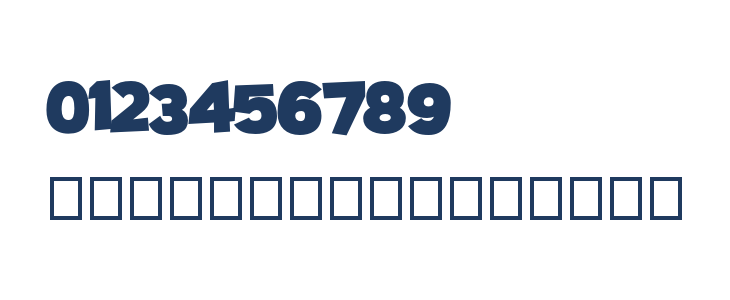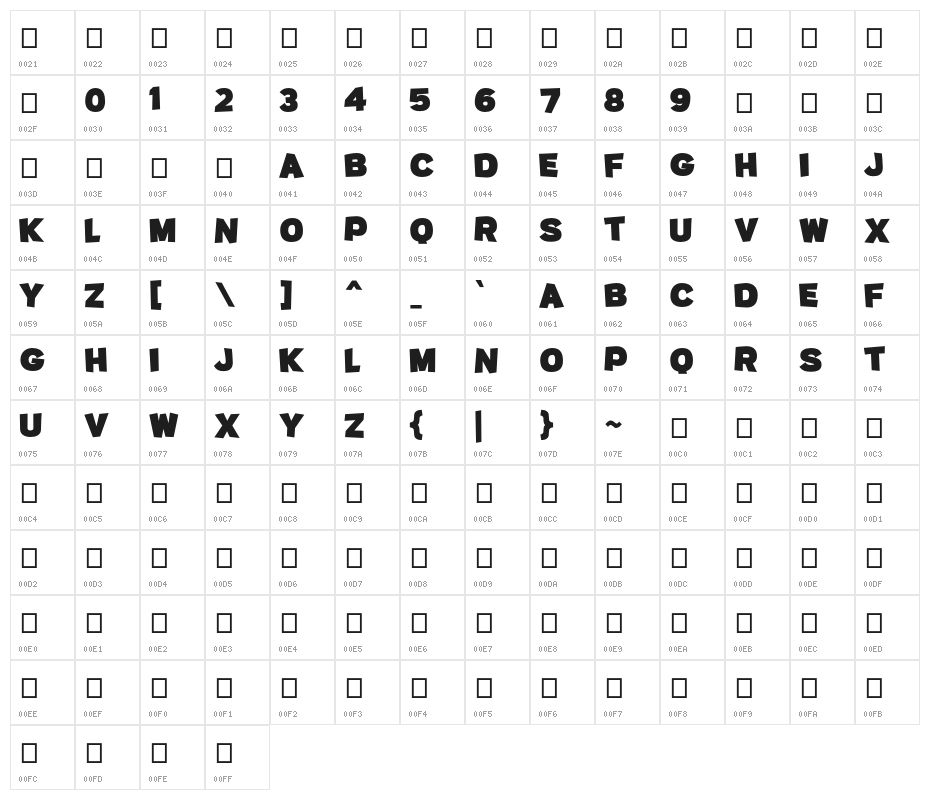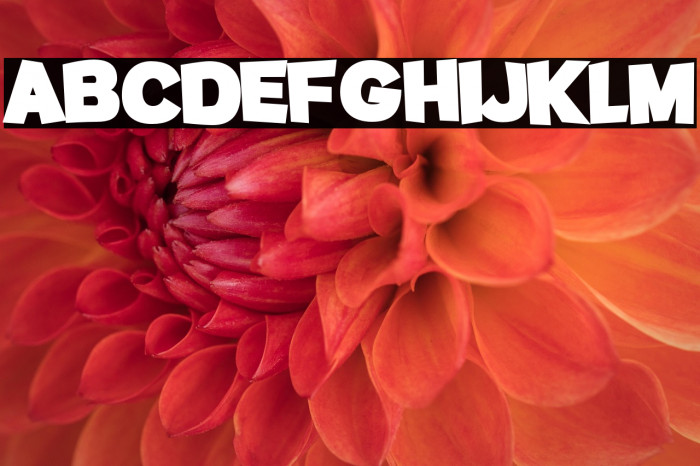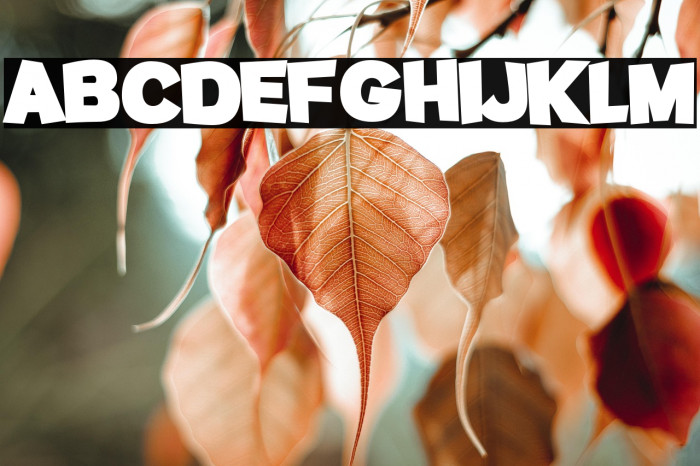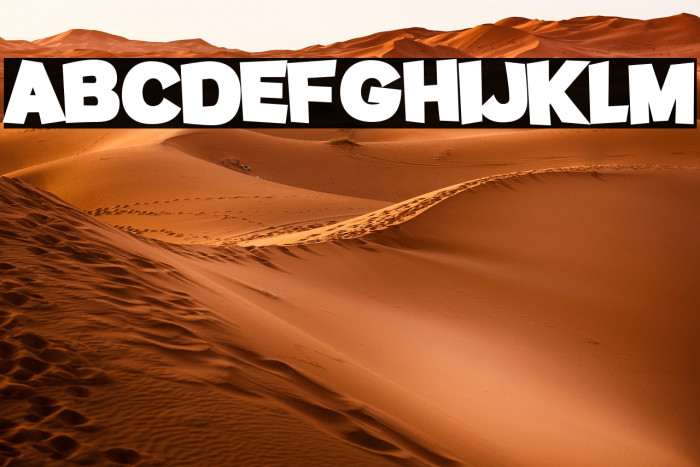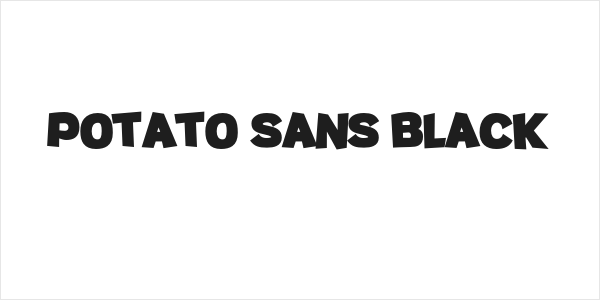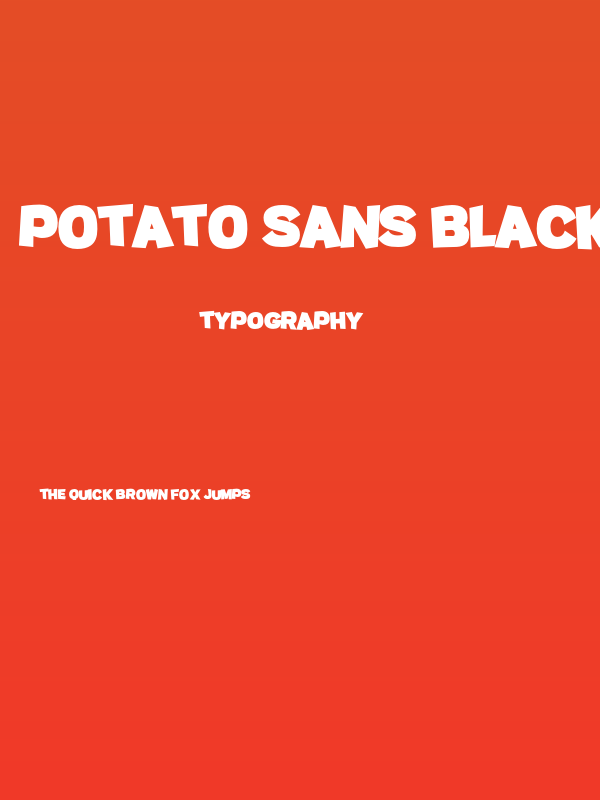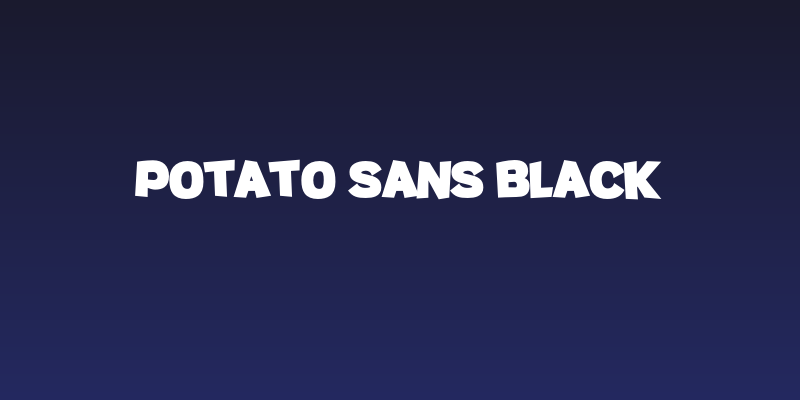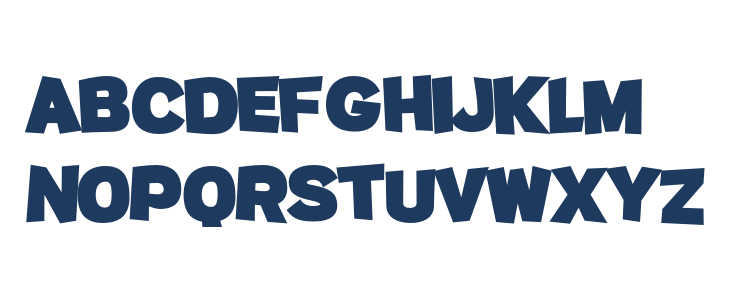
Potato sans Black Font
Potato sans Black Description
This font features a bold and playful design with exaggerated, thick strokes that give it a strong presence. The characters are slightly tilted and irregular, adding a whimsical and dynamic feel. The uppercase letters are particularly prominent, with wide, rounded shapes that convey a sense of fun and energy. The numbers follow the same style, maintaining consistency across the font. This font lacks traditional serifs, opting instead for a more modern and approachable look. Its unique style makes it stand out, ideal for projects that require a bold statement.
| Overall Style | Playful, Modern |
| Proposed Projects | Ideal for children's books, playful branding, posters, and any project needing a fun, bold statement. |